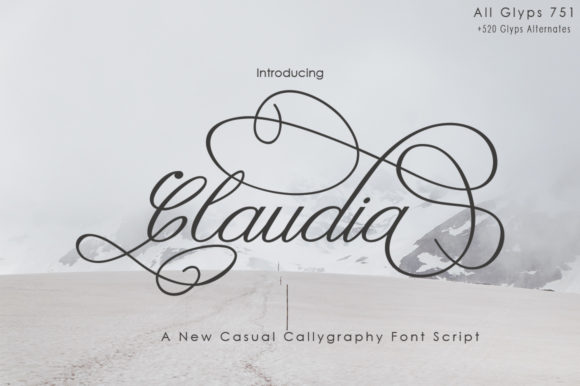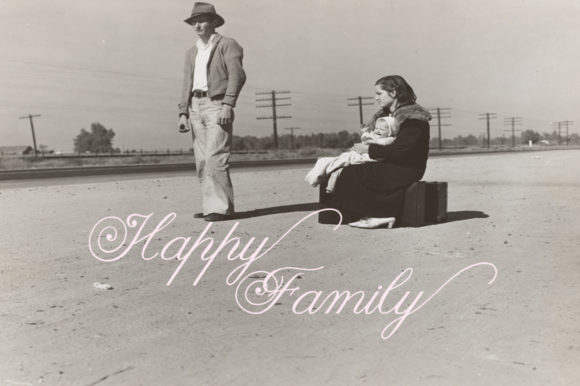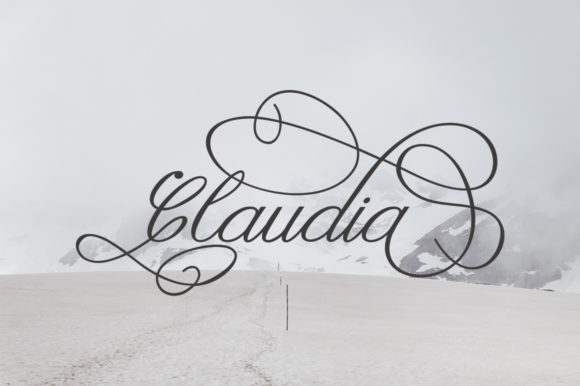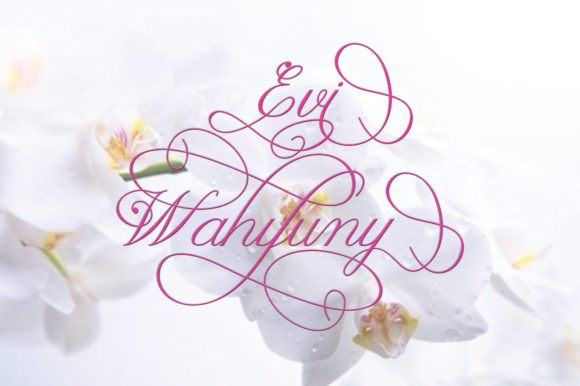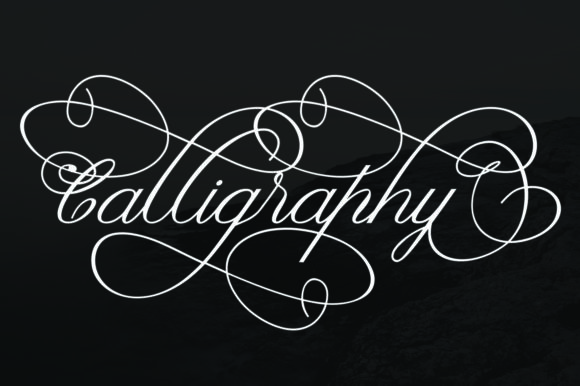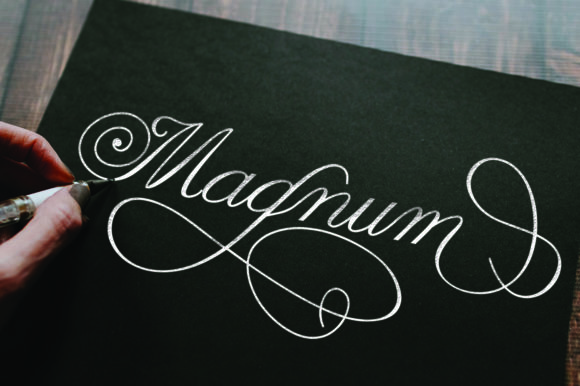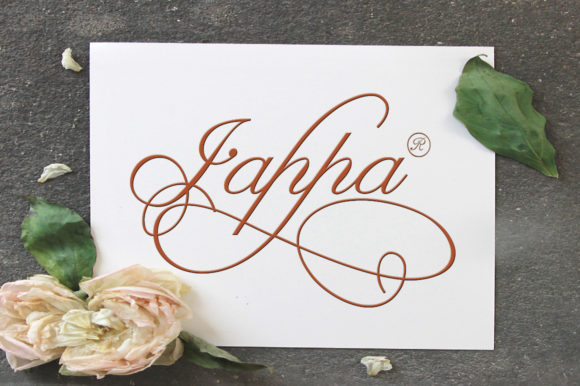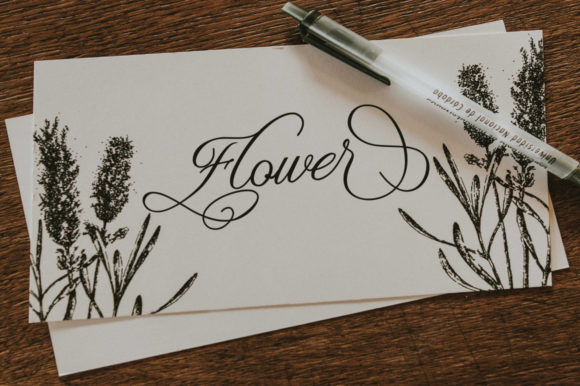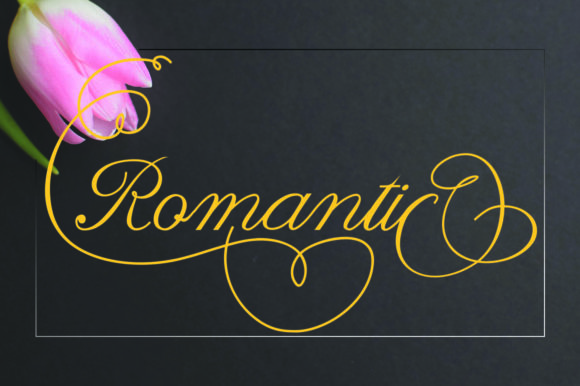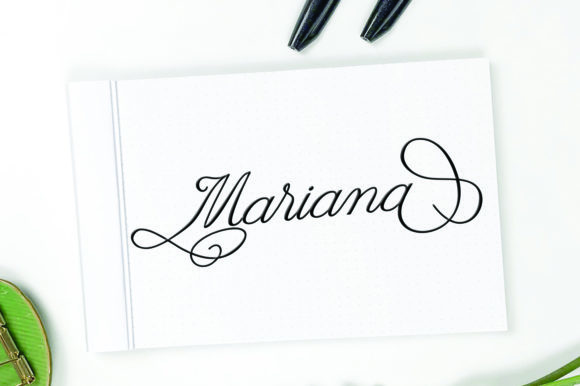
HomeScript FontsClaudia Font Script Fonts Claudia Font FacebookXPinterestWhatsApp Claudia Font Poster 2 Claudia Font Poster 3 Claudia Font Poster 4 Claudia Font Poster 5 Claudia Font Poster 6 Claudia Font Poster 7 Claudia Font Poster 8 Claudia Font Poster 9 Claudia Font Poster 10 Claudia Font Poster 11 Claudia Font Poster 12 About Claudia Font Claudia Script is a stylish calligraphy font that features a varying baseline, smooth lines, and an elegant touch. DOWNLOAD NOW People also explored Bayberry Font Orange Summer Font Hijri Font Sketchbook Font Reality Font Hilles Font Chunky Font Sharlot Font Kuro Font 290 0 TagsClaudia Font Previous articleCharlotte Hasanah FontNext articleQuefira Script Font LEAVE A REPLY Cancel reply Comment: Please enter your comment! Name:* Please enter your name here Email:* You have entered an incorrect email address! Please enter your email address here Website: Save my name, email, and website in this browser for the next time I comment. Personal Use Free Little Things Duo Personal Use Free Read more about this font Hollow Personal Use Free Read more about this font Eits Personal Use Free Read more about this font Shelly Personal Use Free Read more about this font BLOG Best Fonts for YouTube Videos: Make Your Thumbnails Stand Out Best Fonts for YouTube Videos: Make Your Thumbnails Stand Out Choosing the right font can make a massive difference in how your YouTube videos perform.... Top 10 Handwritten Fonts That Elevate Your Designs Elegant Wedding Invitation Fonts – Handwritten & Script Fonts Modern Sans-Serif Fonts That Brands Love in 2025